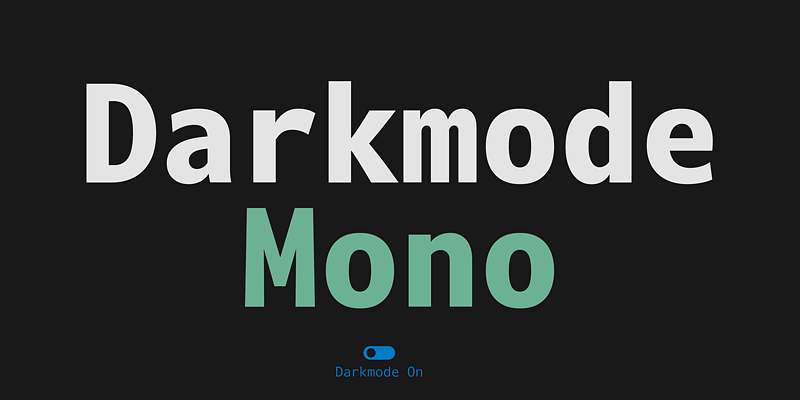
Darkmode Mono Font Free Download is a sleek, modern monospaced typeface designed specifically for coding, terminals, tech interfaces, and minimalist digital design. With its crisp lines, uniform spacing, and high readability, this font is perfect for developers, designers, and anyone working in UI/UX who values both function and style.
What makes Darkmode Mono Font Free Download stand out is its balance between technical clarity and contemporary aesthetics. It offers great character differentiation—making it easy to read code for long periods—and looks especially sharp in dark-themed environments, living up to its name.
Its clean, geometric forms make it suitable not only for code but also for branding, posters, and design systems where a tech-inspired monospaced look is desired. It maintains structure without feeling rigid, which gives your designs a bit of personality while keeping everything precise.
Darkmode Mono is more than a coding font—it’s a visual tool for clean, confident digital storytelling. Whether you're designing for dark interfaces or just want a sharp, functional mono typeface, it’s a solid choice for both creativity and code.